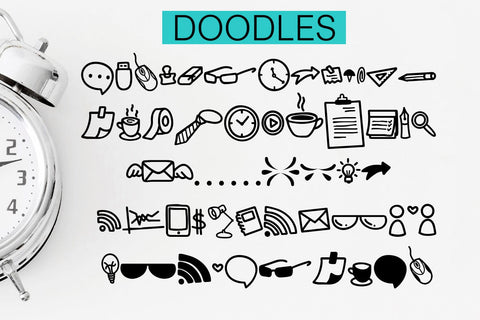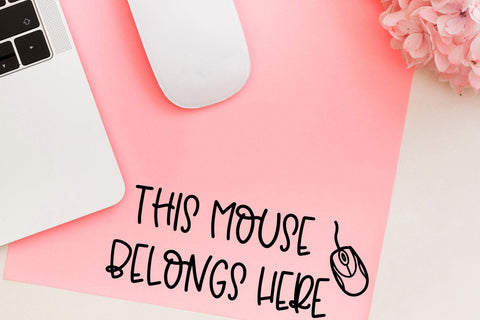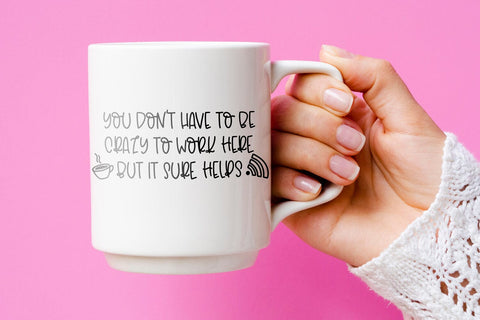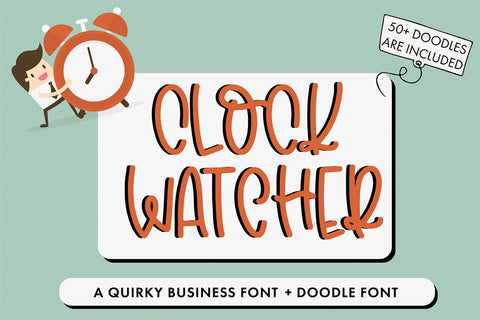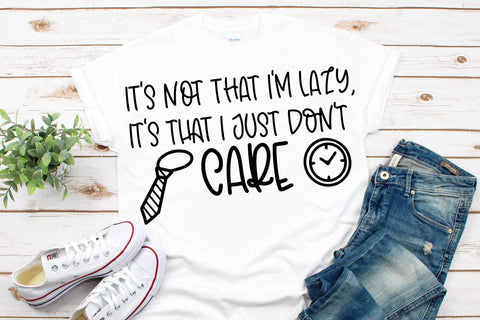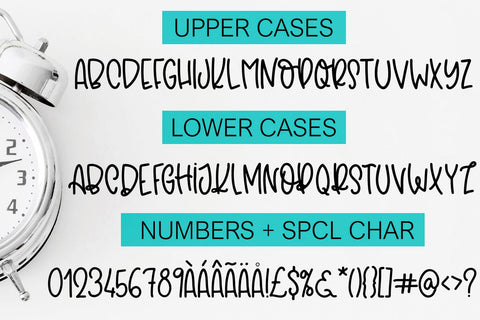
Clock Watcher
Are you tired of the same old boring fonts in your business designs? Spice things up with Clock Watcher - the perfect font for all your business-themed needs! Clock Watcher is a fun and playful handwritten font that adds a touch of whimsy to any project.
Clock Watcher features a unique design that perfectly captures the essence of the business world. With its carefully crafted letters, Clock Watcher adds a fun touch to any design.